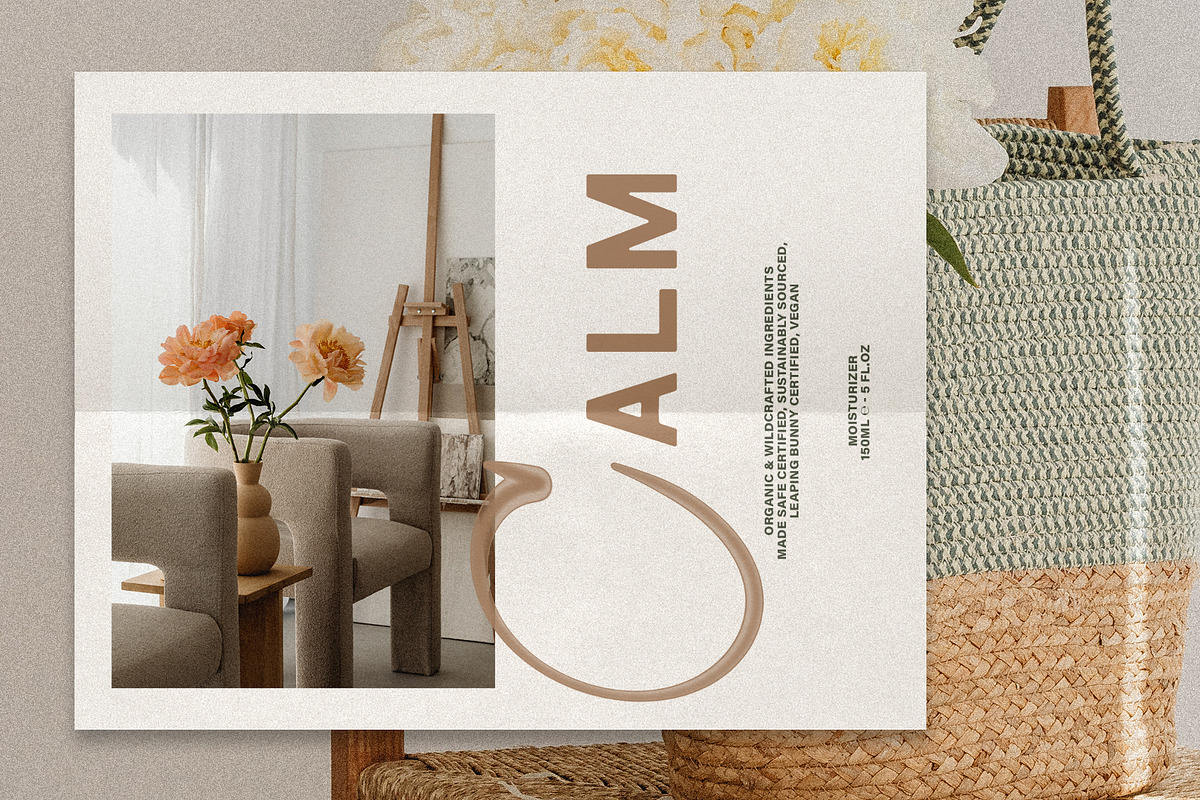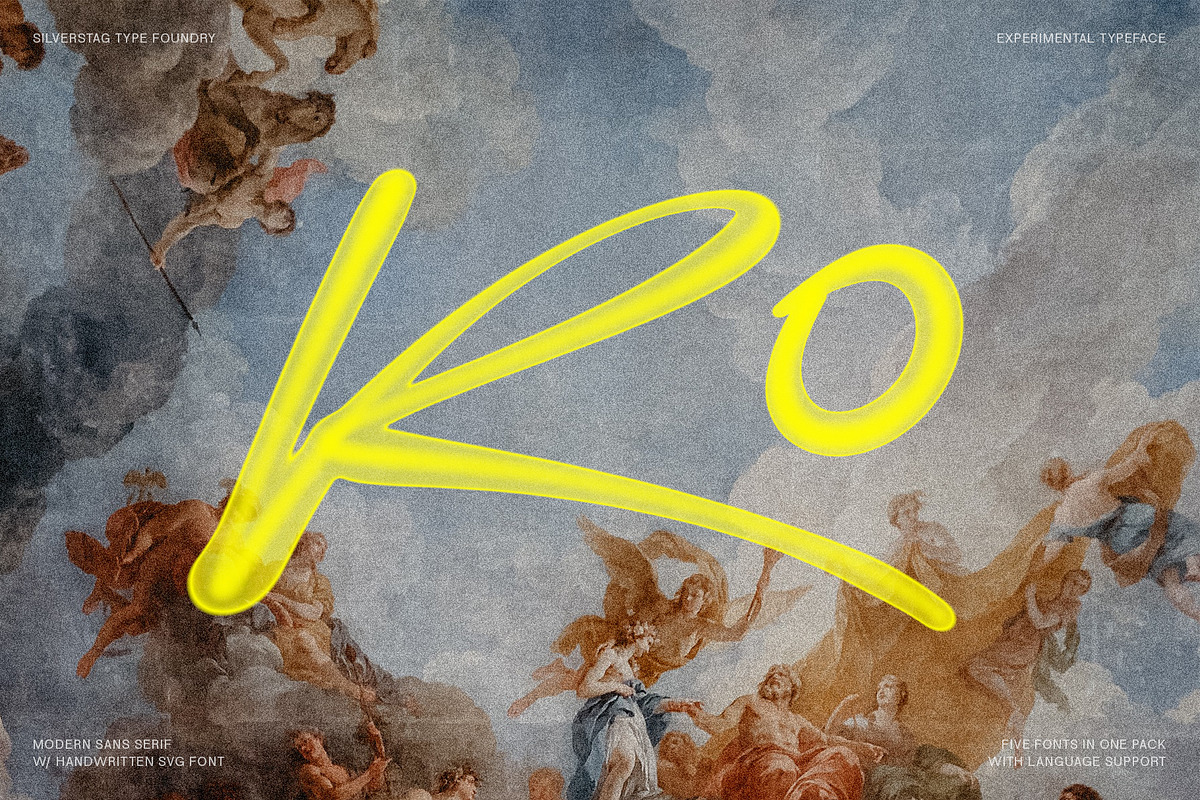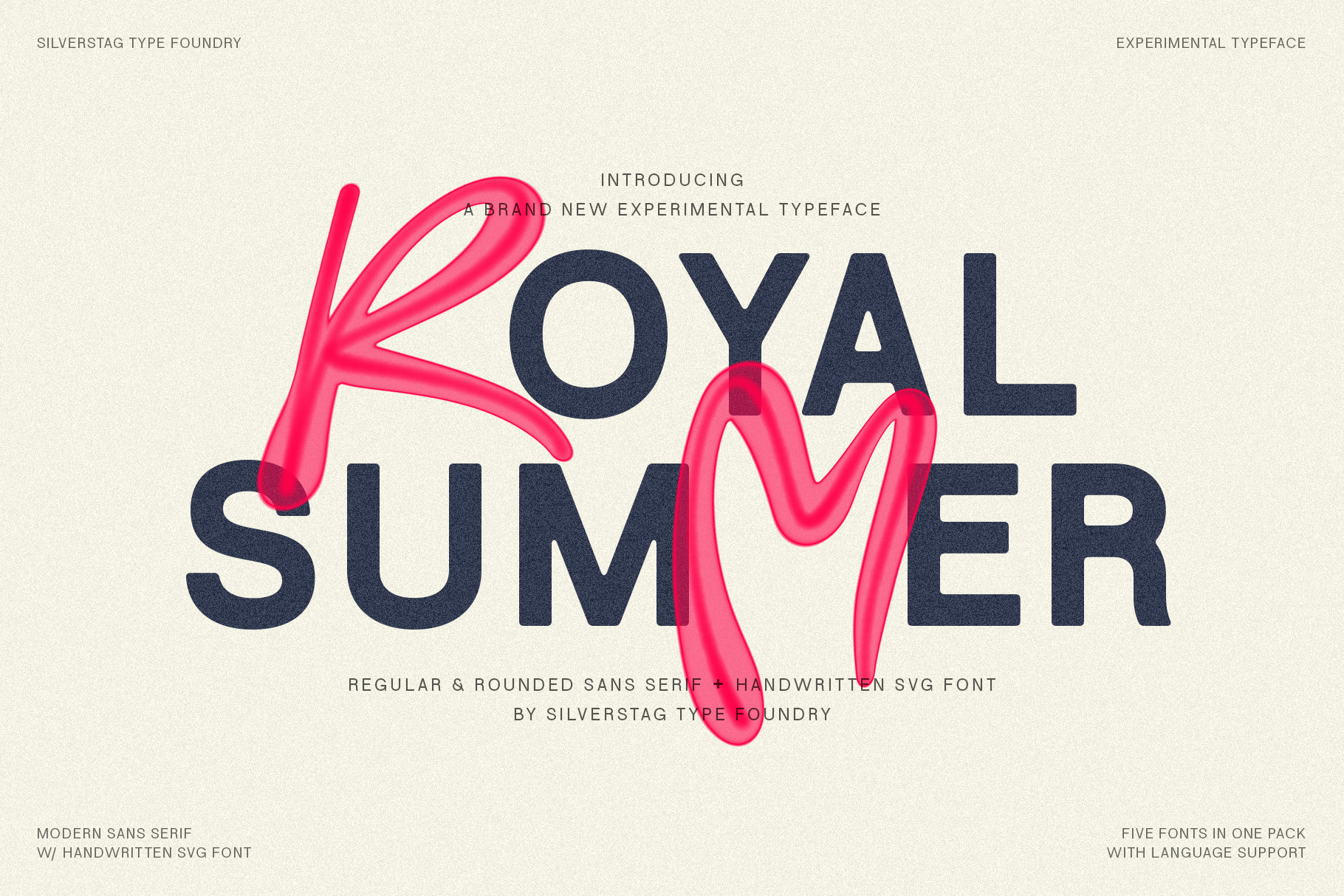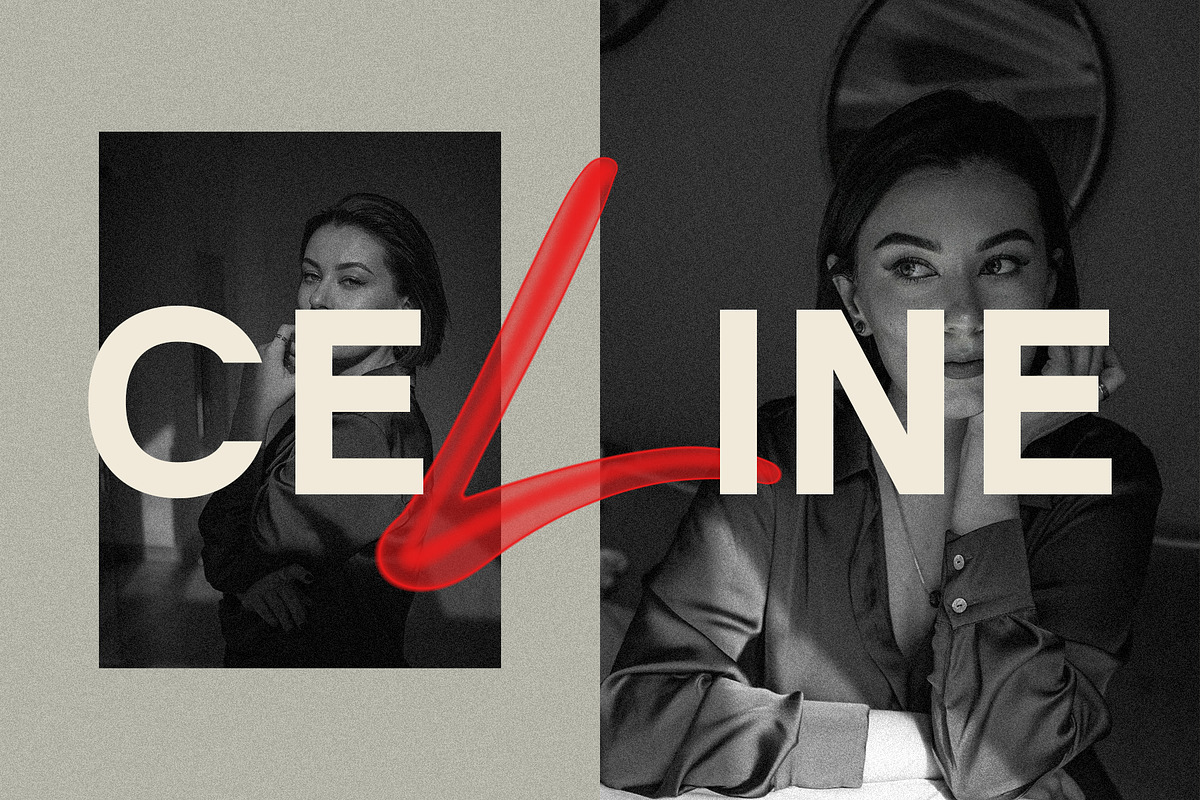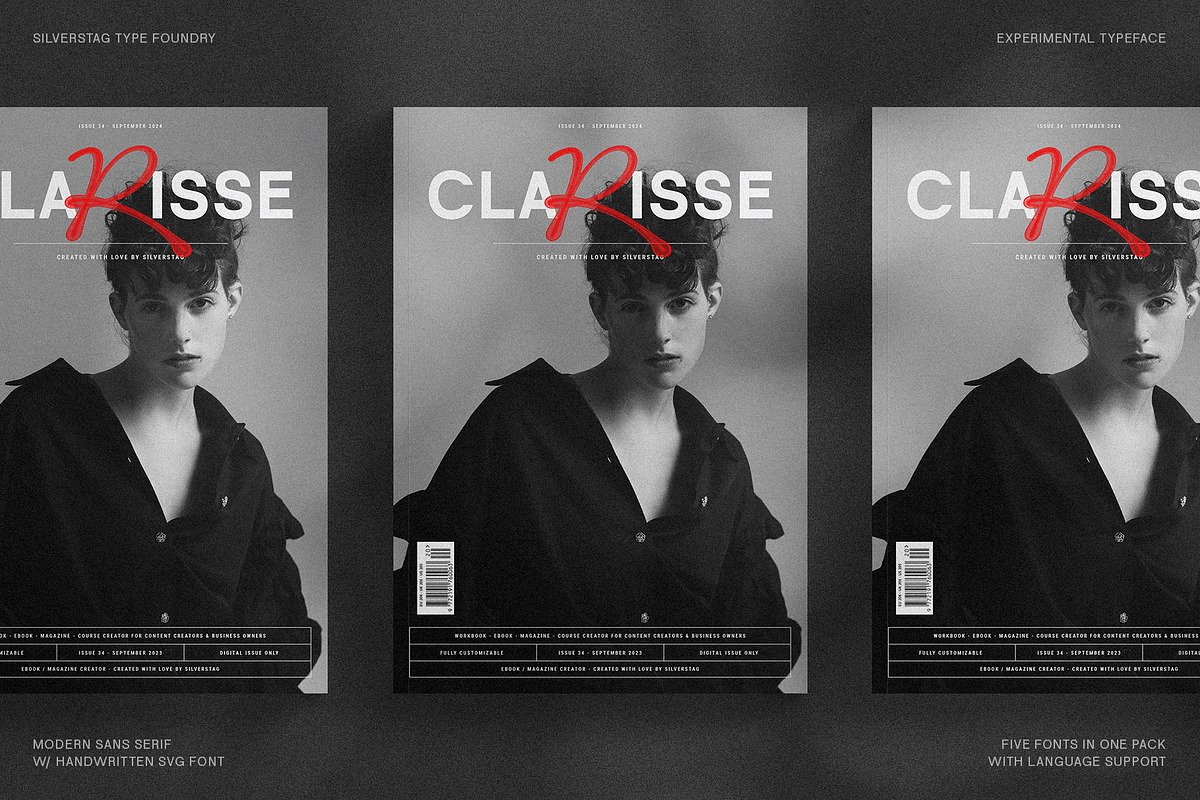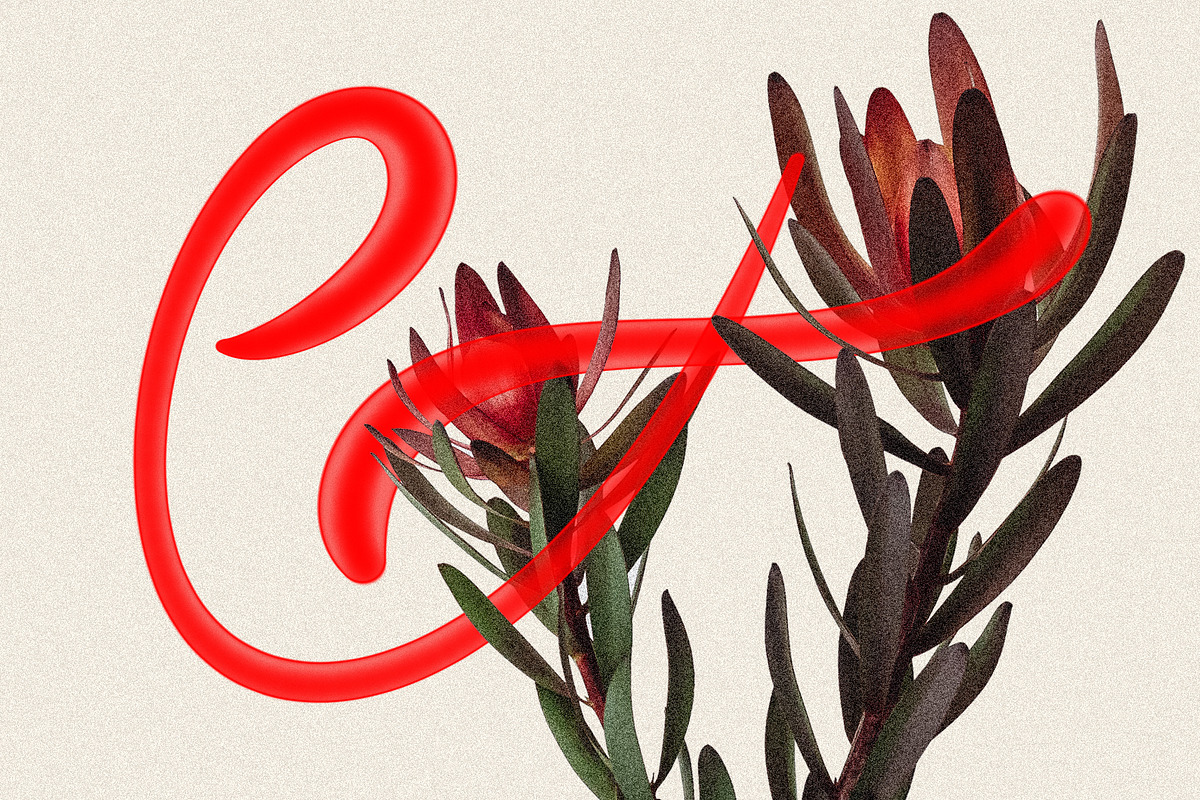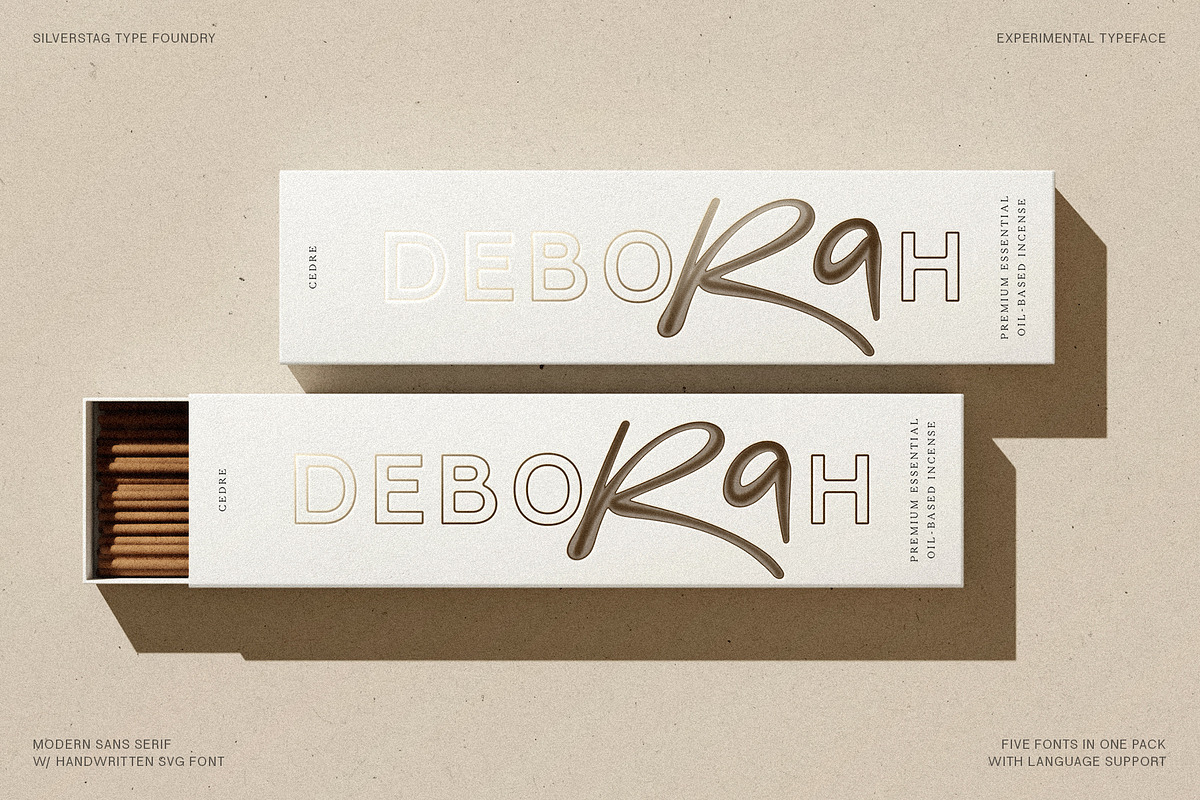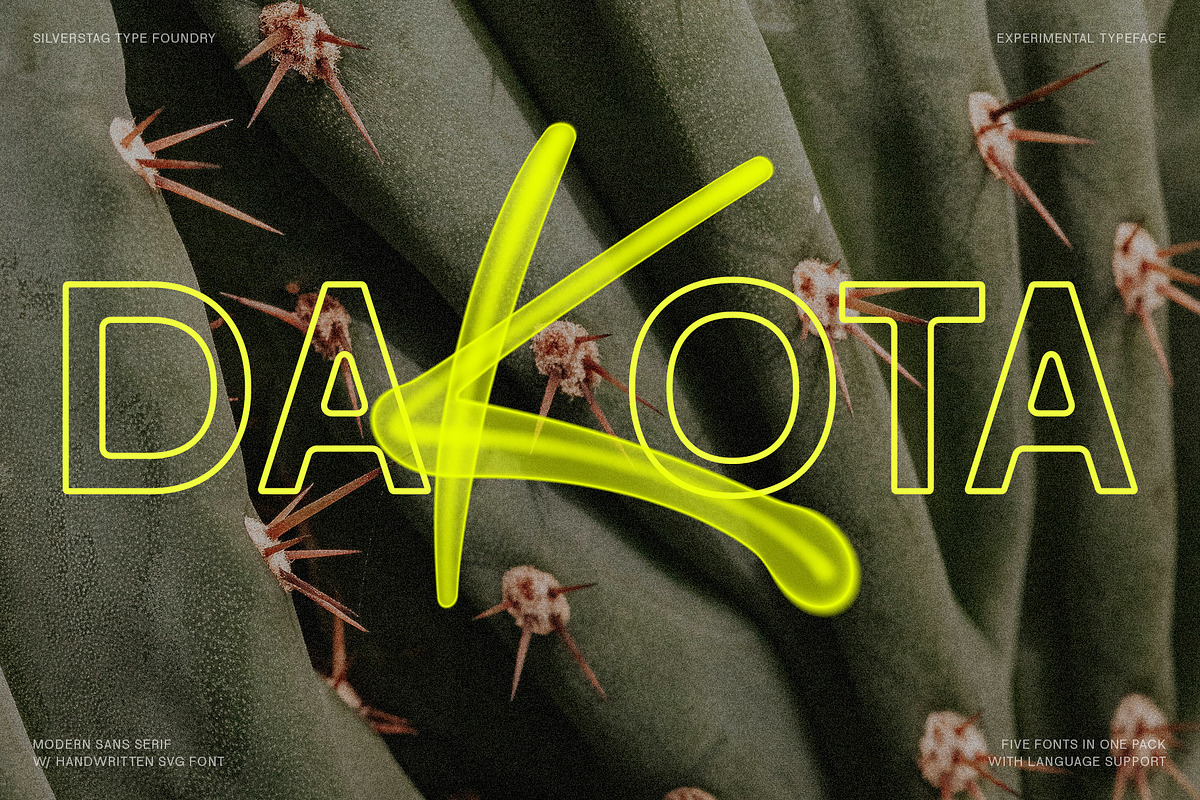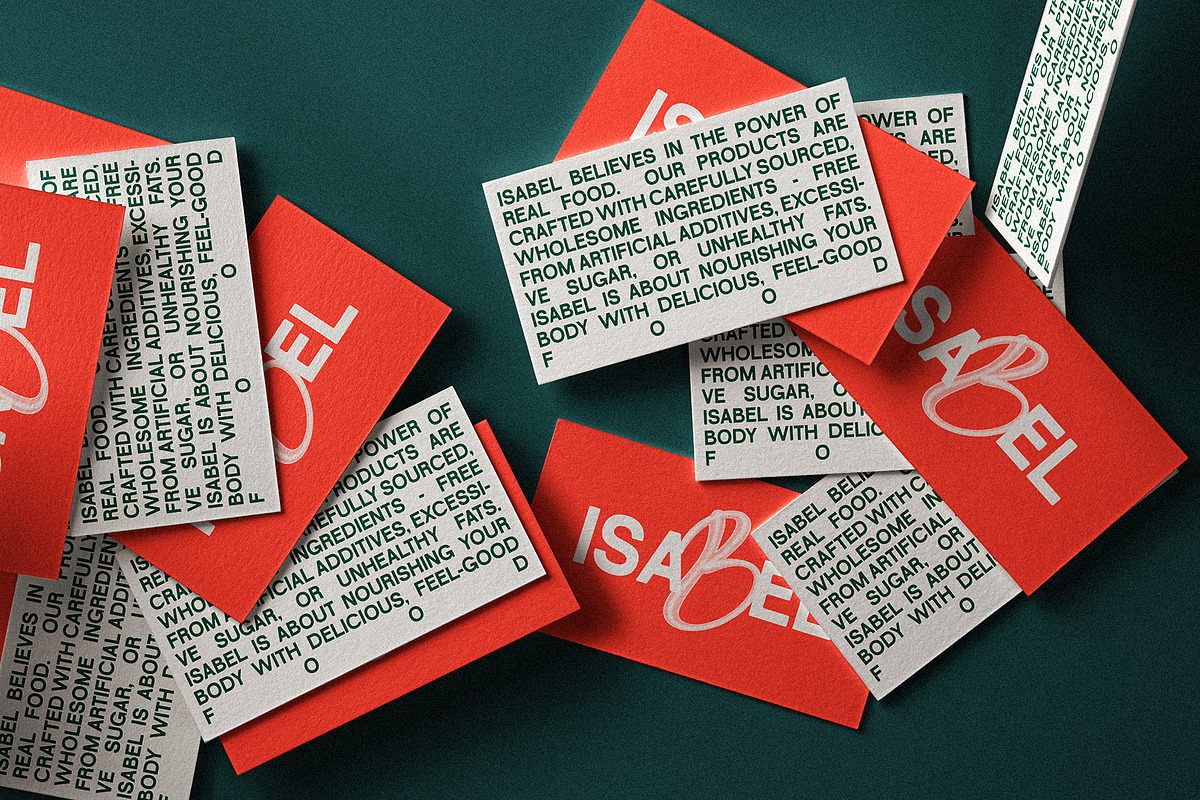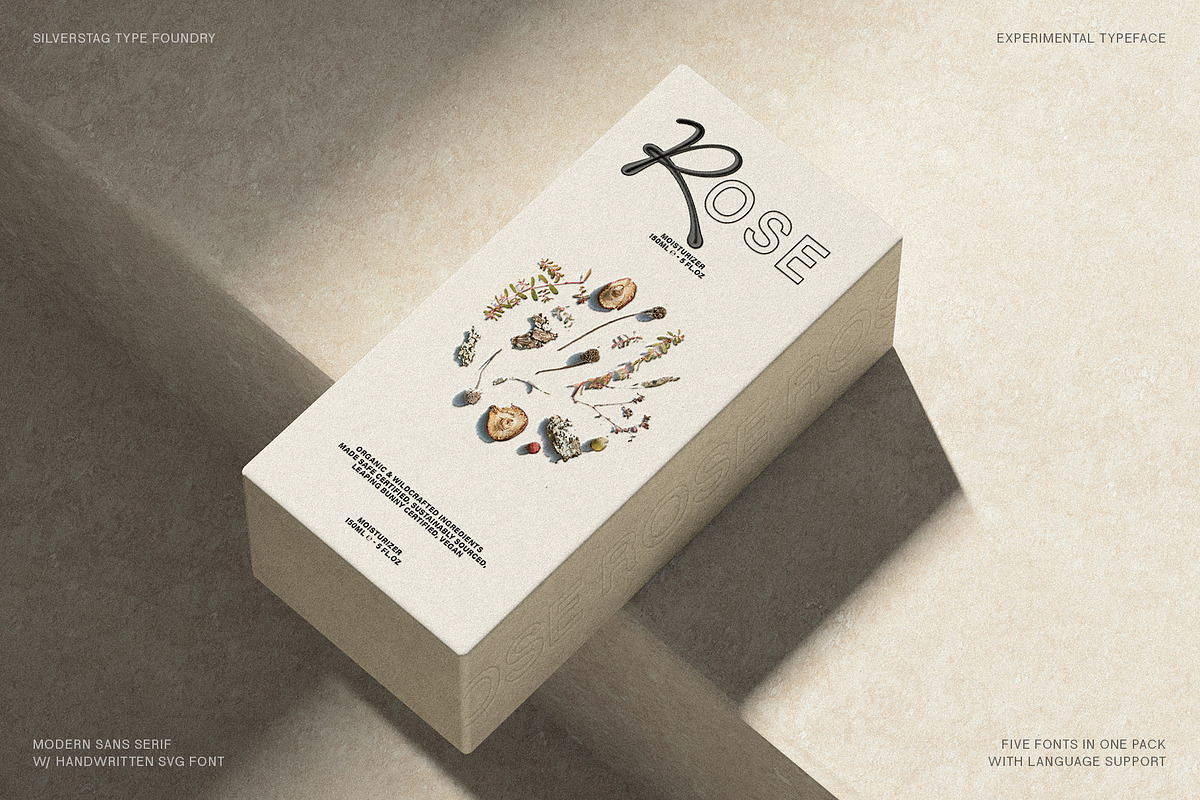
Royal Summer - Cool Display Typeface
Introducing Royal Summer: Where Bold Meets Playful, Chic Meets Handcrafted
Get ready to elevate your designs with Royal Summer, a dynamic font duo that seamlessly blends the power of a modern sans serif with the expressive energy of hand-drawn brush lettering. It's a typeface that embodies the carefree spirit of summer with a touch of sophisticated elegance.
The Sans Serif: Boldness Redefined
Royal Summer's sans serif foundation comes in four distinct styles: Regular, Rounded, Regular Outlined, and Rounded Outlined. Choose clean, crisp lines or opt for soft, rounded edges to achieve the perfect aesthetic for your project. With full language support for over 90 languages and every character imaginable, it's a versatile tool ready for anything.
The SVG Brush Font: Unleash Your Creativity
Royal Summer's true magic lies in the SVG brush font. 36 hand-drawn letters are at your fingertips, offering endless possibilities for expressive headlines, playful logos, or custom social media graphics. For designers using apps that support SVG fonts, the brush lettering will seamlessly flow like a natural brushstroke.
Where Royal Summer Shines
- Bold Branding: Create unforgettable logos and packaging that exude a modern, handcrafted feel.
- Expressive Social Media: Design eye-catching graphics that reflect your unique personality and style.
- Trendy Apparel & Products: Add a touch of playful sophistication to t-shirts, mugs, tote bags, and more.